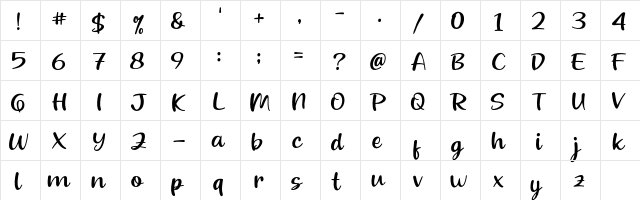
Beloved Teacher Regular
| Foundry | Khurasan |
| Designer | Khurasan |
Design Context for Beloved Teacher Typeface
Beloved Teacher is a composed and adaptable typeface that performs quietly and consistently across a wide range of design contexts.